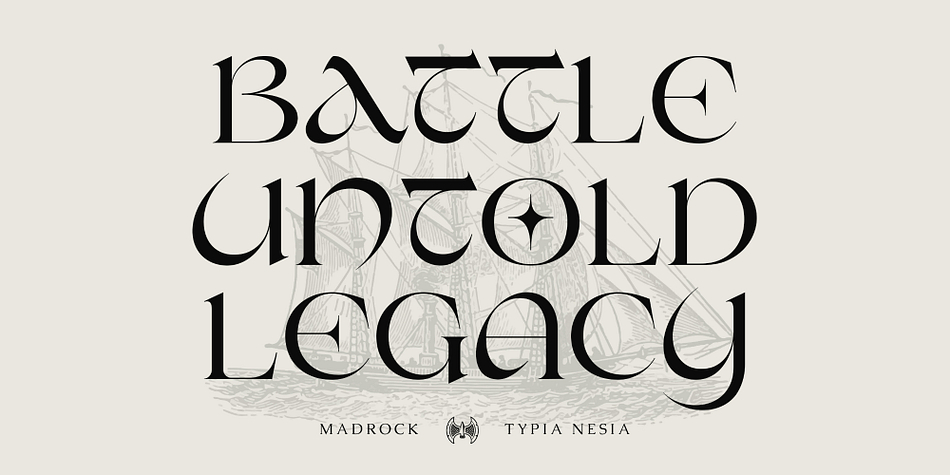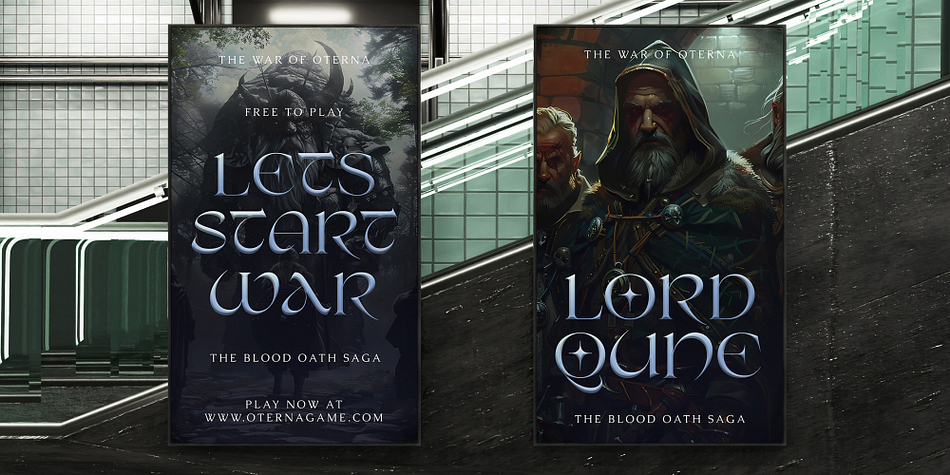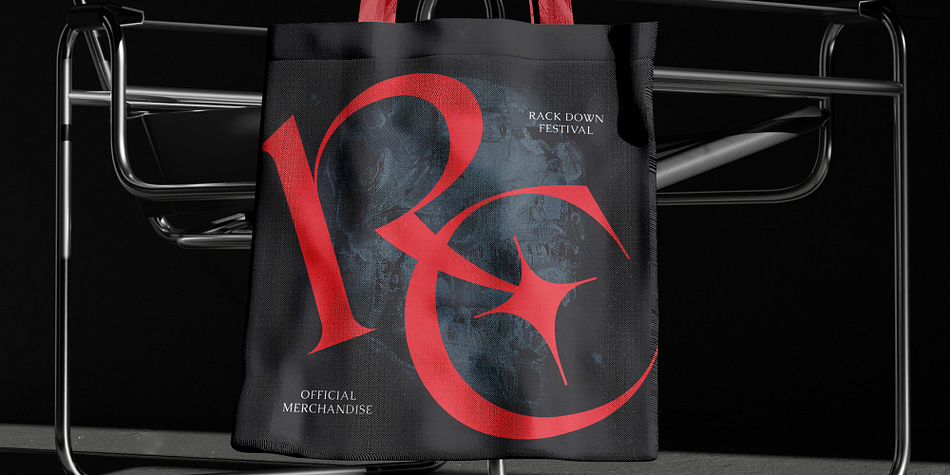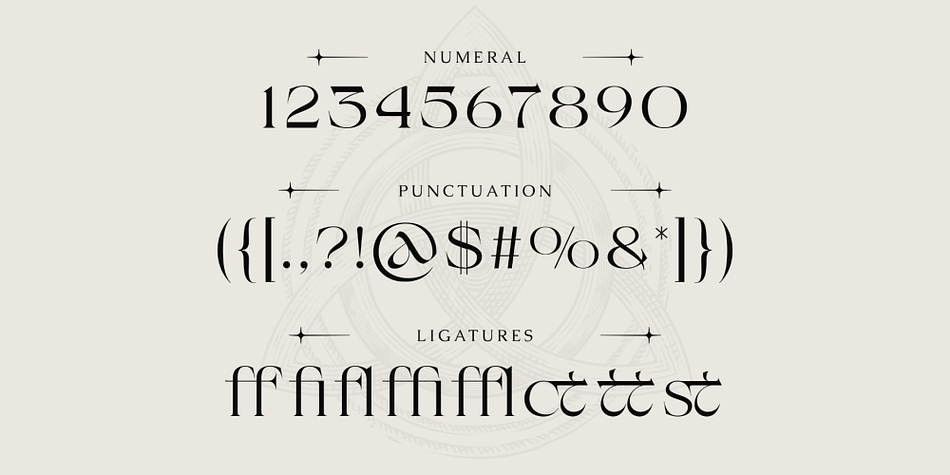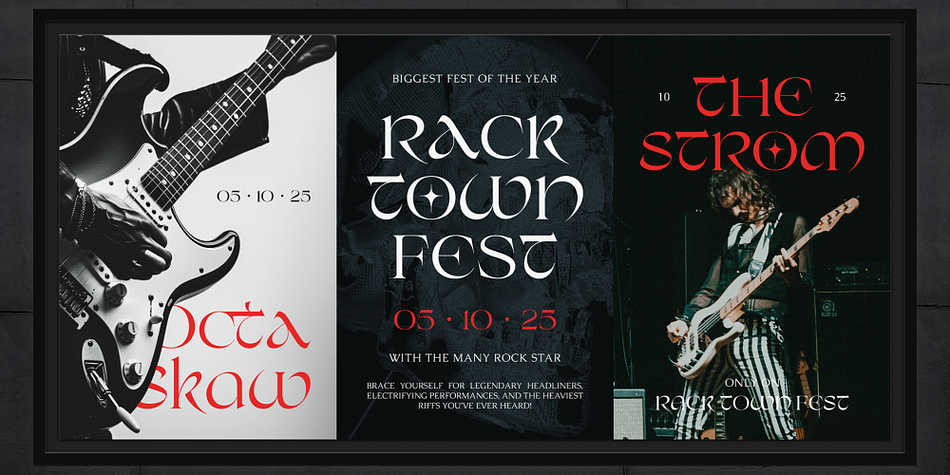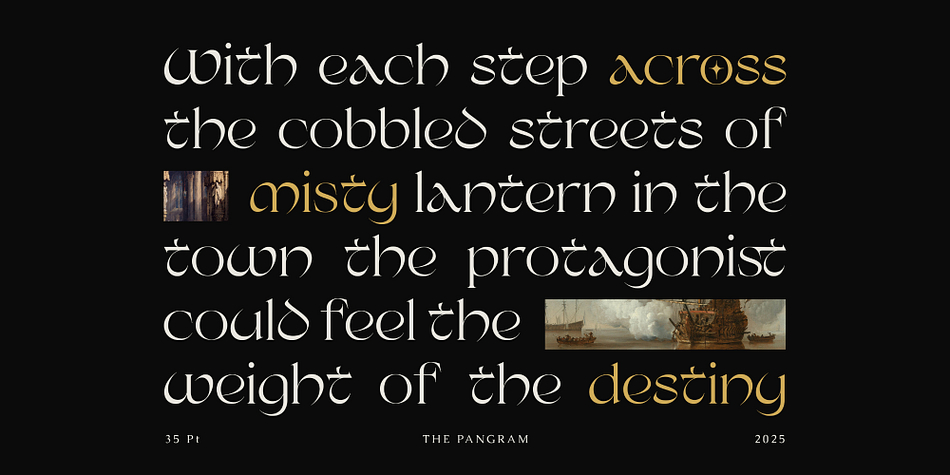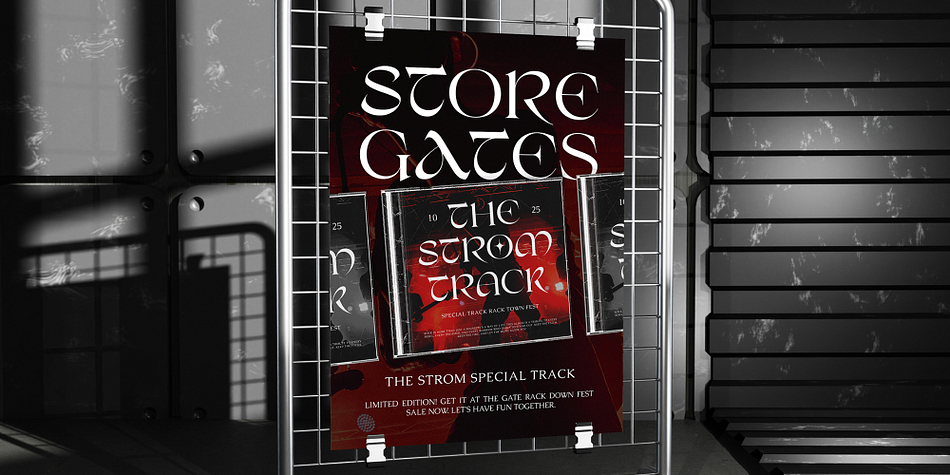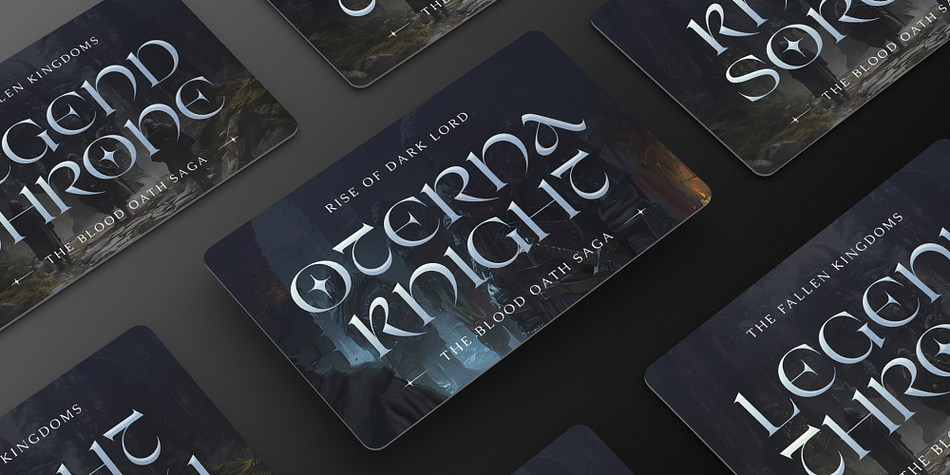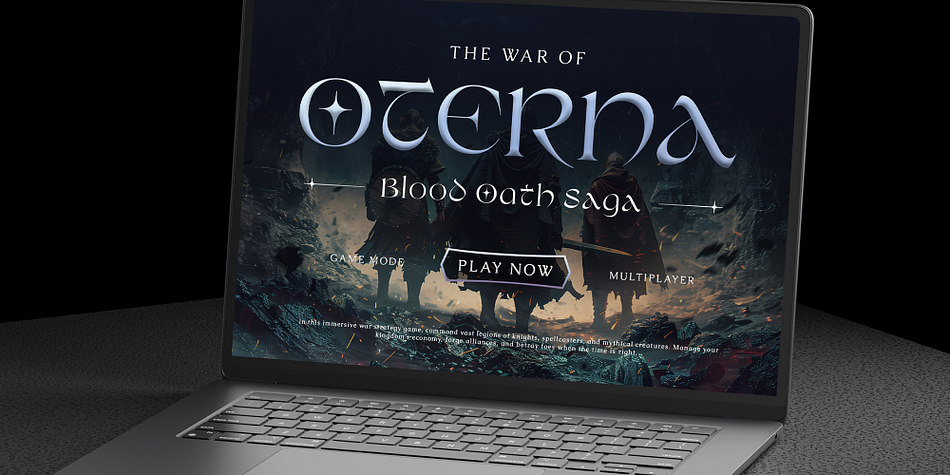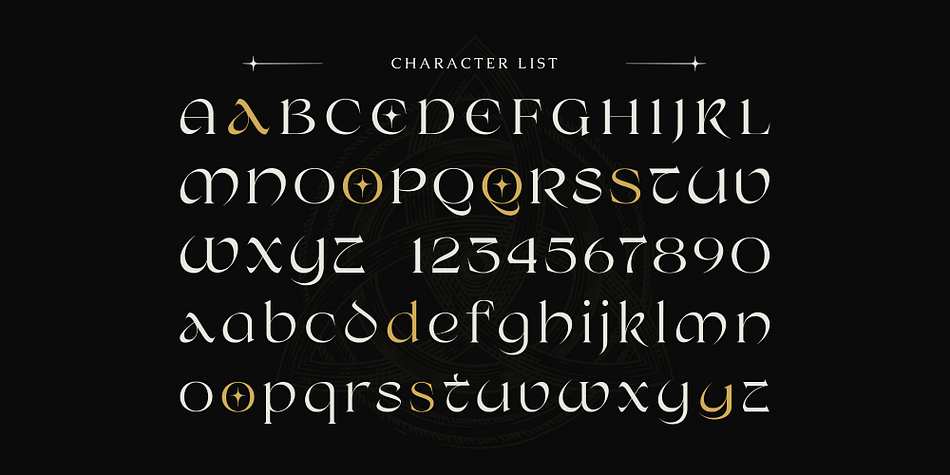
Madrock
Madrock is a serif font family published by Typia Nesia.
Madrock - Elegance Fantasy Serif Font - Vintage Classic Display Font
Madrock is an elegant fantasy serif font with a graceful, otherworldly charm. Its delicately crafted curves and enchanting details bring a magical aesthetic to your design, blending classic serif structure with a mystical, storytelling vibe. Perfect for book covers, fantasy-themed posters, logo designs, branding for beauty or fashion products, wedding invitations, packaging, social media graphics, and any project that needs a touch of elegance with a fantasy twist. Comes with uppercase and lowercase letters, punctuation, numerals, ligatures, stylistic alternates, and multilingual support. Madrock was created by expert typographers with a passion for fantasy and classic design. It’s a perfect choice for creatives, authors, designers, and branding specialists who want to elevate their work with a refined, magical serif typeface.